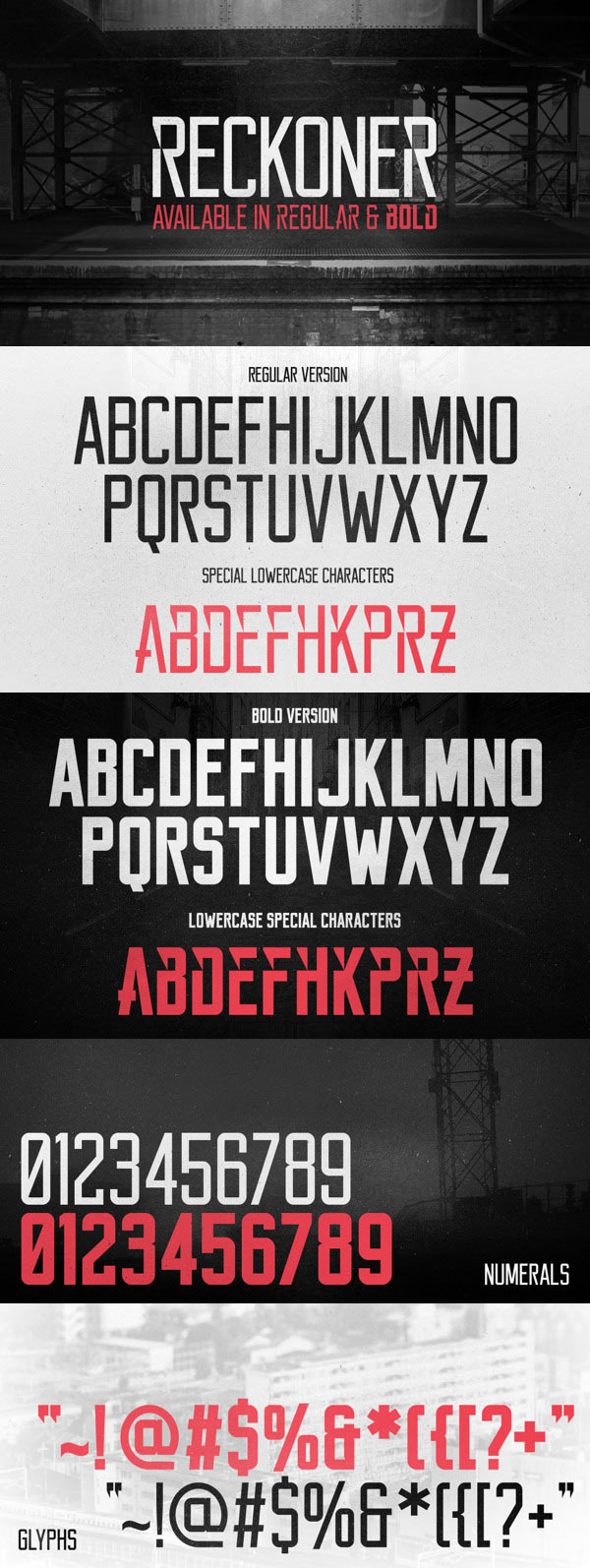
Drawing inspiration from popular free fonts like Bebas Neue, Reckoner is a cool free font that is edgy. It’s tall and comes with 2 styles: Regular and bold.
Styles: 2 (Regular and Bold)
Designer: Alex Dale